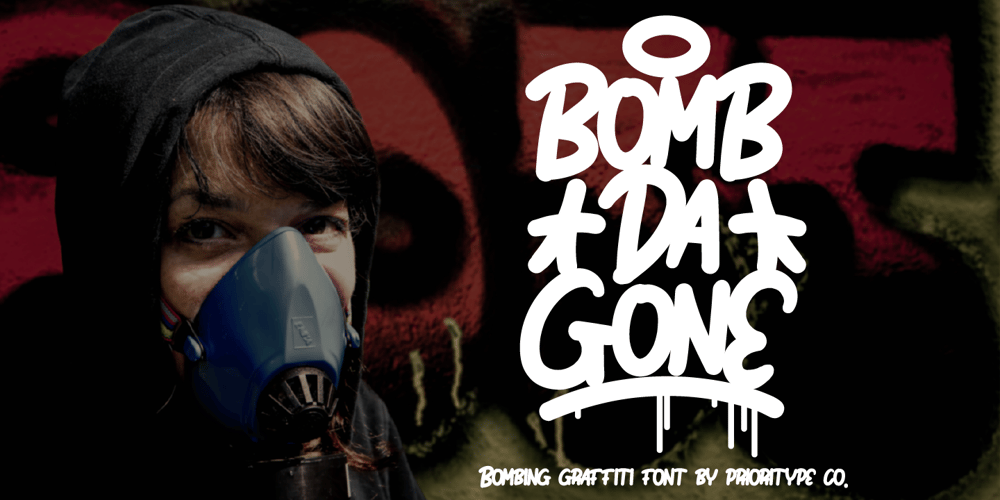
Bomb Da Gone Font Family was designed by Prio Nurokhim Aji and published by Prioritype. Bomb Da Gone contains 1 styles and family package options. Start creating new moves. Make cool designs in urban graffiti style. You can apply them to your designs such as t-shirt designs, skateboards, album covers, merchandise, tote bags, landing pages, social media posts, posters, stickers, events etc. See some of the previews above for reference.Features:-Uppercase-Numeral-Punctuation-Multilingual-PUA Encoded-Opentype FeaturesNote: To access the Opentype feature, it would be better if you use a program that supports it and is available with a glyph panel so you can see various alternative characters. Examples of programs such as Adobe Illustrator, Corel Draw or Inkscape.Thanks.